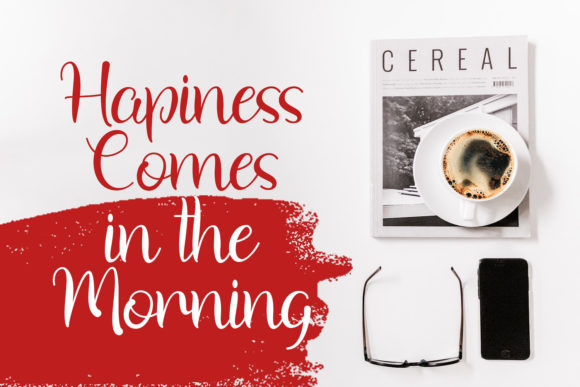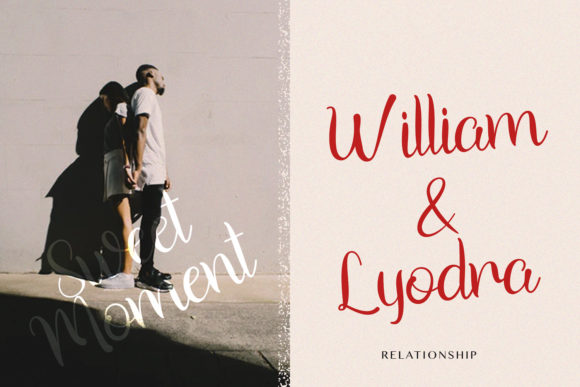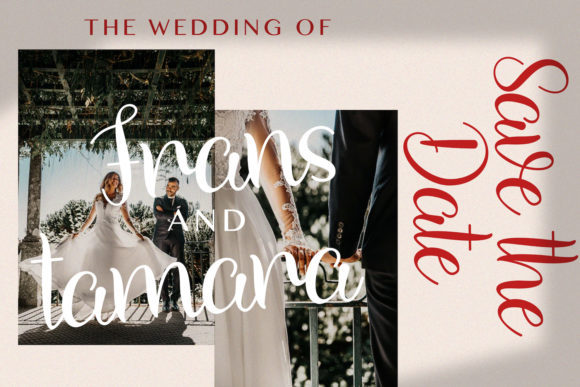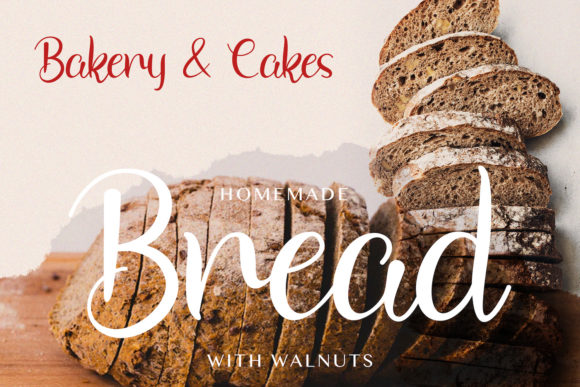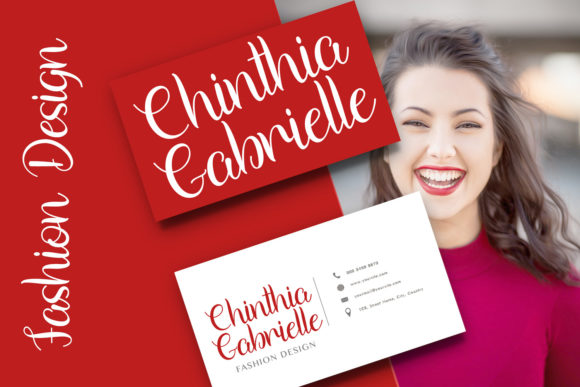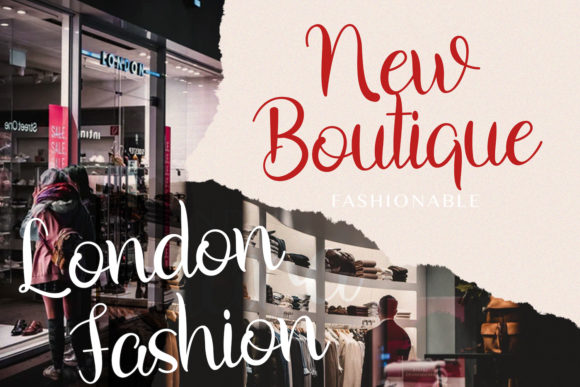
Introduction to Arionna Font
Arionna is a gorgeous script font.
It features a calligraphy modern style and cute ligatures This font is perfect for fashion brand, wedding invitation, business cards, logo, social media posts and much more.